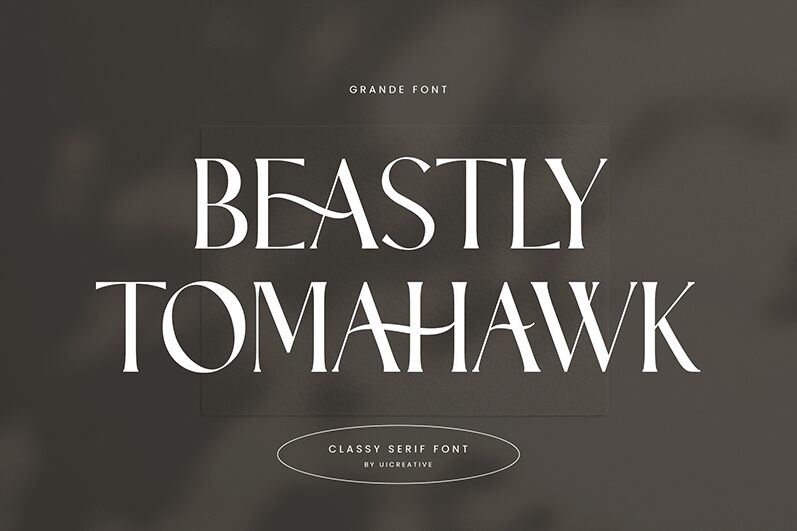
BeastlyTomahawk
Beastly Tomahawk, crafted by UI Creative, is a striking serif font that exudes both elegance and power. Its bold strokes and sharp serifs create a commanding presence, making it perfect for headlines and titles that demand attention. The unique letterforms combine traditional serif sophistication with a modern edge, resulting in a font that is both timeless and contemporary.
Ideal for branding, editorial design, and impactful posters, Beastly Tomahawk adds an authoritative yet stylish touch to any project. Its visual strength ensures clear readability while maintaining an artistic flair. Whether used in print or digital media, this font stands out with its distinctive character and versatile application possibilities.